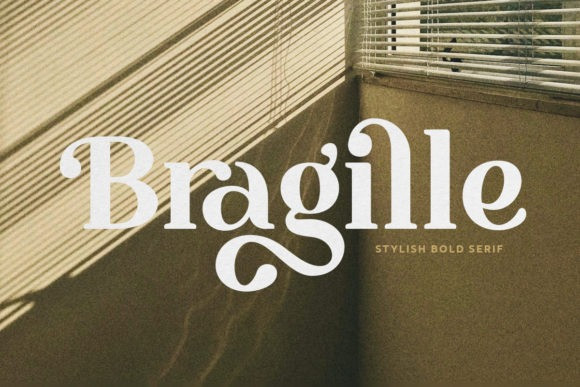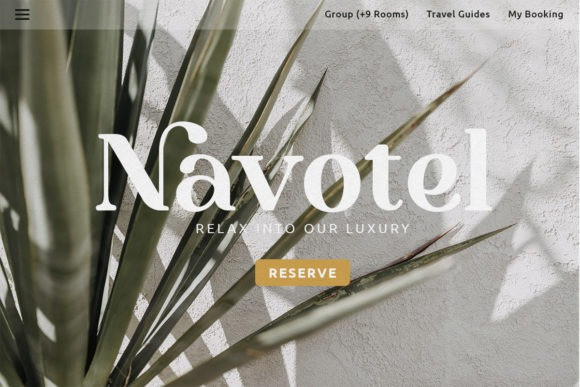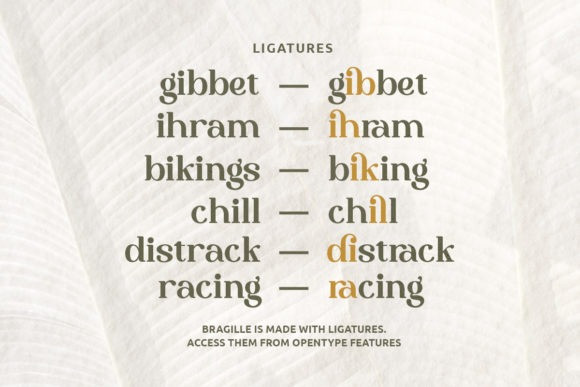
Bragille Font
Introduction our new font, Bragille!
Bragille is a modern bold serif that can make your project looks cool. With a bunch of stylish ligatures and alternates, this font can build your design or presentation even more stunning and stand out too! Bragille also support Multi Language.